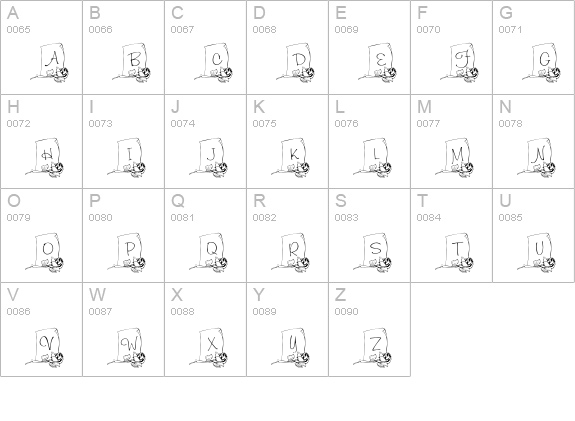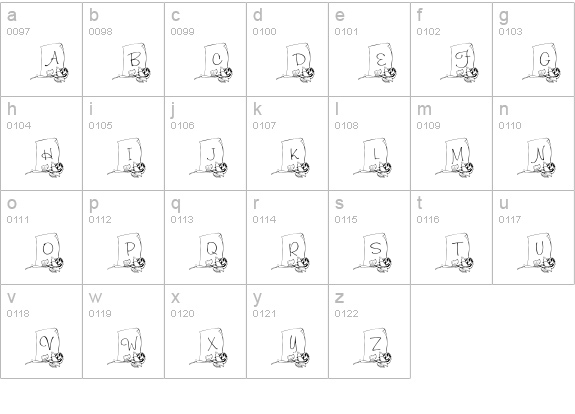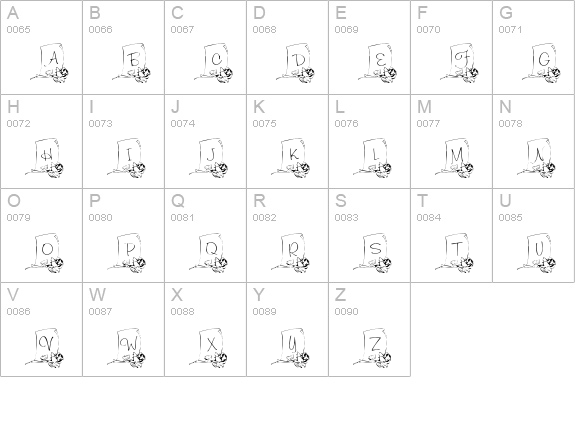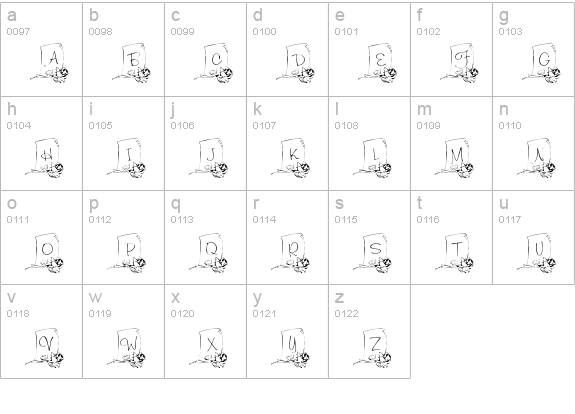
RoseNote font is a beautifully designed typeface that exudes elegance and sophistication. Its delicate curves and intricate details make it perfect for adding a touch of refinement to any project. The flowing lines of RoseNote bring a sense of grace and charm to your text, making it ideal for invitations, branding, and other creative endeavors. What makes RoseNote font even more appealing is that it is available for free download at FontsMarket.com. This means you can easily access this stunning font without any cost, allowing you to elevate your designs without breaking the bank. Don't miss out on the opportunity to enhance your projects with the timeless beauty of RoseNote font - download it today and let your creativity flourish!